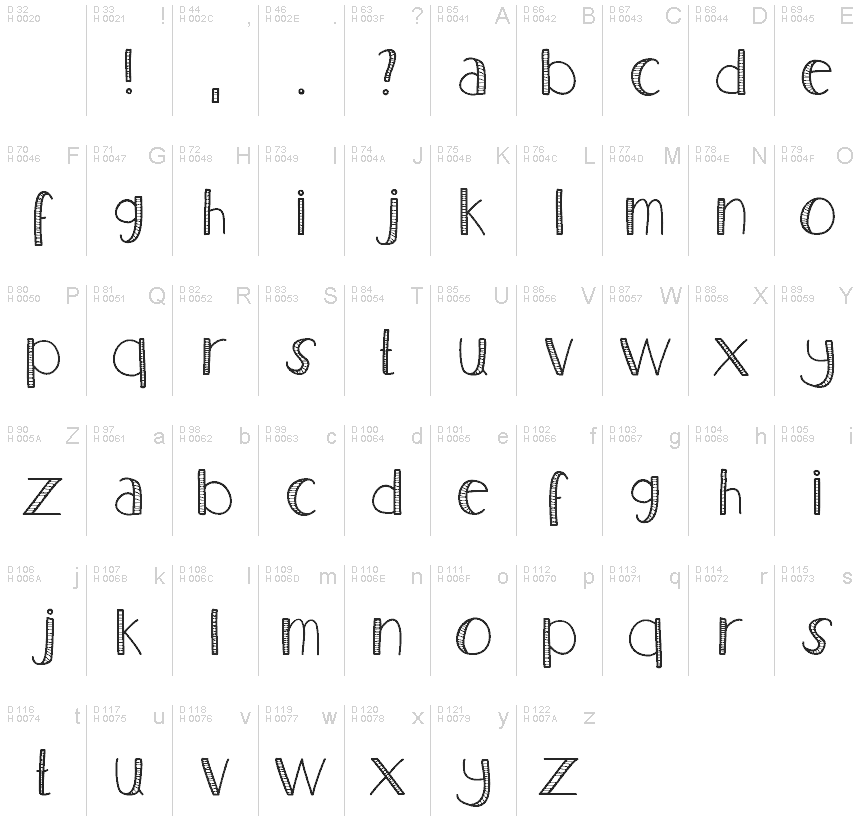
Nelship
Nelship is a captivating display font that immediately commands attention. Distinctive and expressive, its organic lines and playful character lend an irresistible charm to any design. The intertwining strokes and irregular textures create a sense of movement and dynamism, making Nelship an excellent choice for eye-catching titles, headlines, and branding elements.
This font's versatility extends beyond its striking aesthetic appeal. Nelship's unique style can seamlessly integrate into a variety of design contexts, from editorial layouts and packaging to web interfaces and advertising campaigns. Its striking personality adds an element of personality and flair, making it a valuable asset in the arsenal of designers seeking to make a lasting impression.